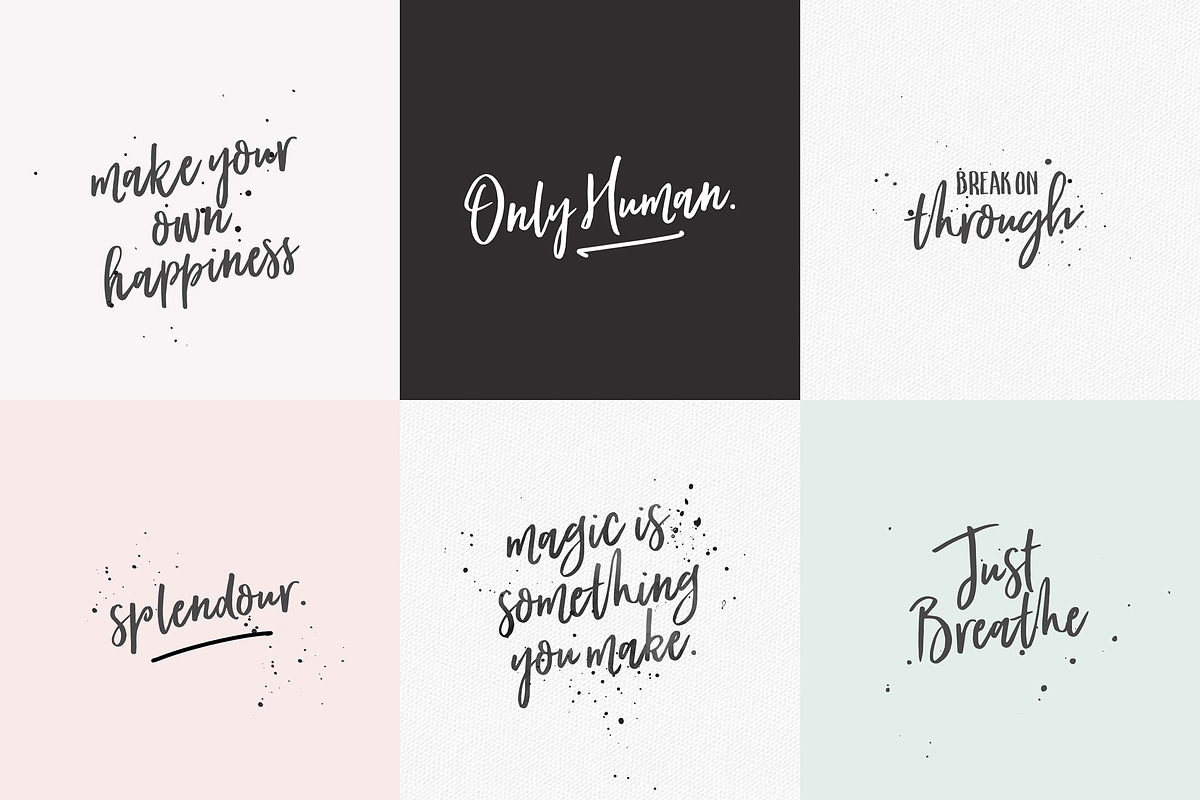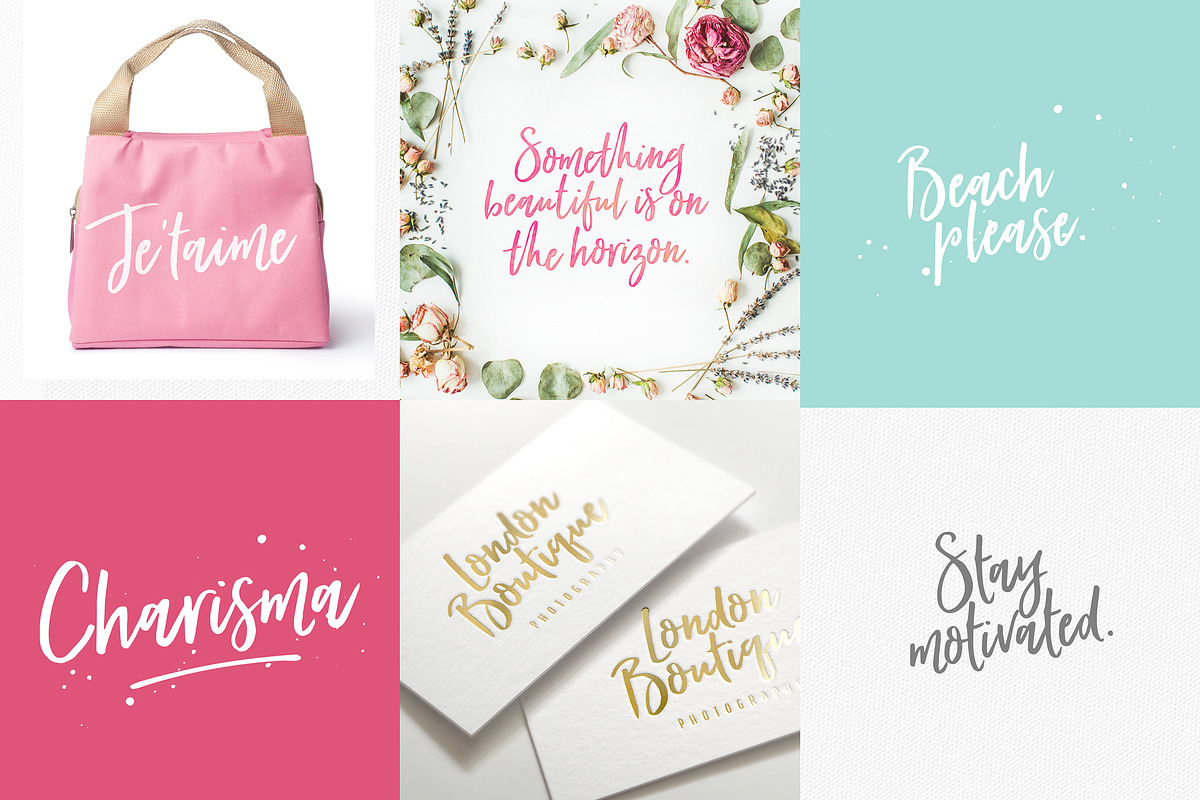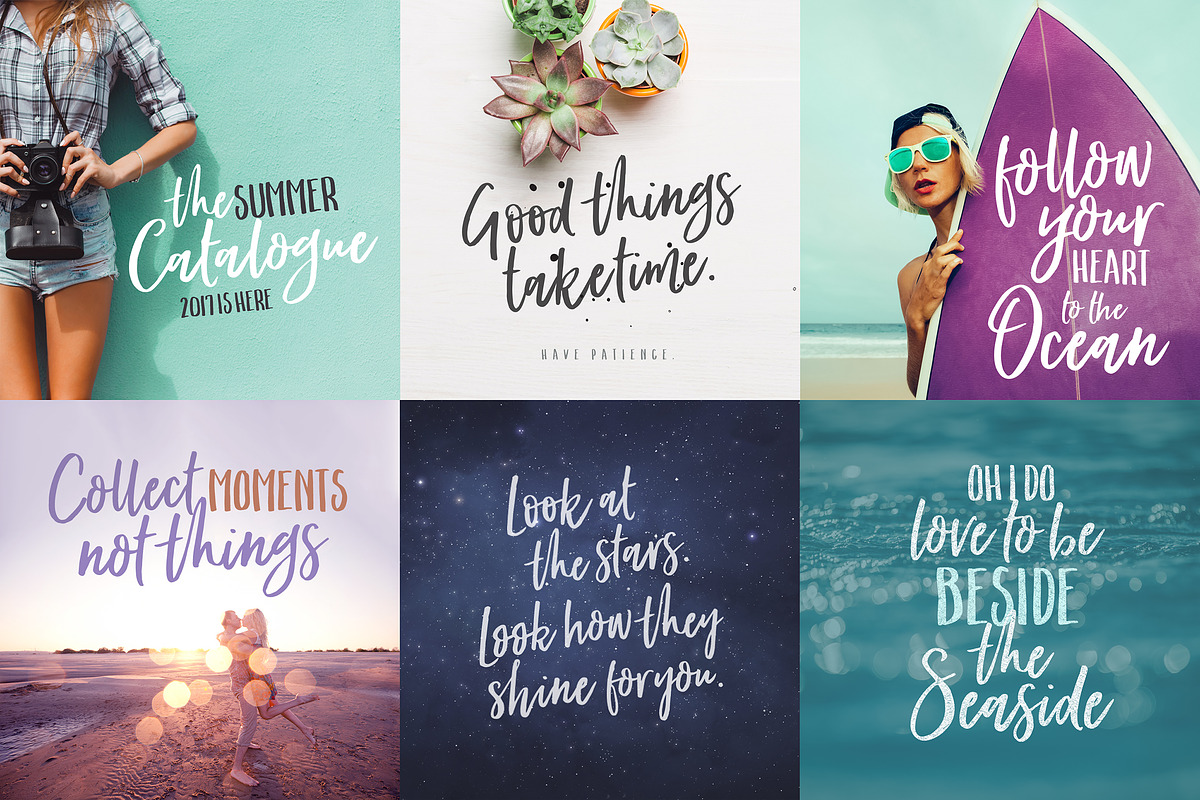
Introducing ♥ Forever Soulmates ♥ – a fashionable little font duo with a chilled personality.
Forever Soulmates is based on the currently popular hand brush lettering found on social media designs, in retail fashion , and hand written quotes.
♥ OODLES OF ALTERNATE LETTERS Forever Soulmates is different in that each uppercase letter and each lowercase letter has an alternate version. This allows your designs to look more natural , and less like a font.
♥ LIGATURES Put a “c” and and “h” together, and you get a magically natural-looking, hand-scripted “ch” – thats a ligature 🙂 Forever Soulmates has a large selection of ligatures – which further adds to the organic nature of the font. They won’t believe its a font 🙂
♥ IT’S A FONT DUO An extra sturdy hand-brushed sans font compliments it perfectly for quotes and typographic designs – but match the Forever Soulmates regular font with a graceful serif-style font, and watch it transform into something elegant and beautiful.
♥ VERSATILE & ORGANIC Forever soulmates is very versatile and can be used in many applications – Logos, branding, on apparel, for greeting cards, presentations, social media, posters, retail outlet design, magazines, ebooks and much much more.
♥ SPLATTERS AND SWISHES You didn’t think I wouldn’t include some handy design helpers, did you? Included is a “Swish” font, which includes a couple of bonus splatters and swishes to help you add some oomph to your designs 🙂